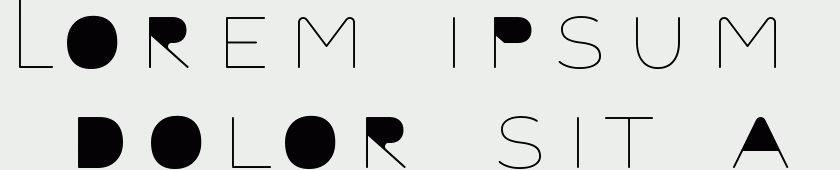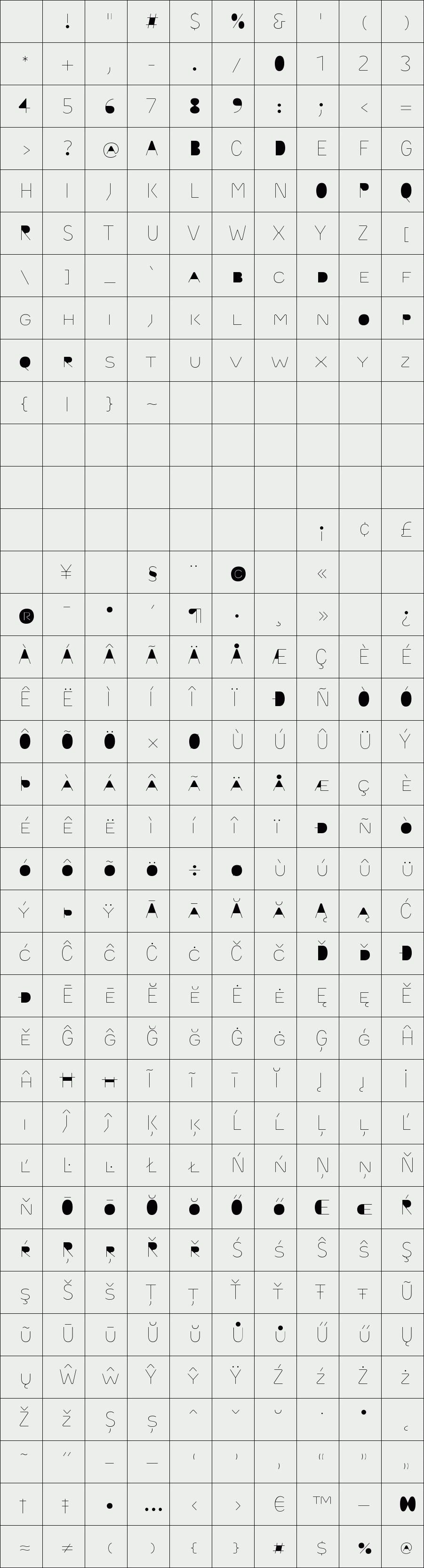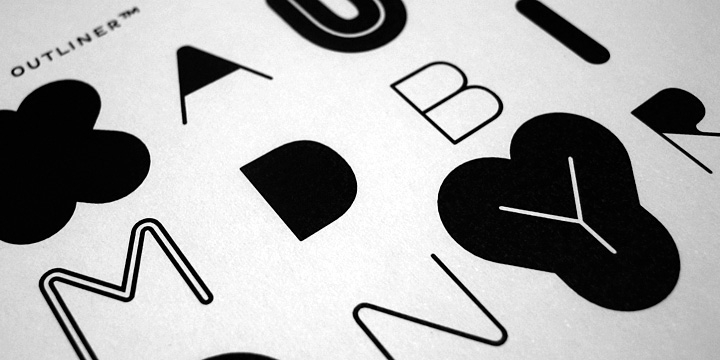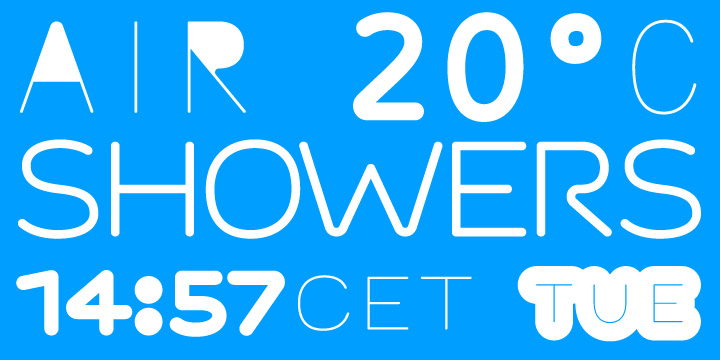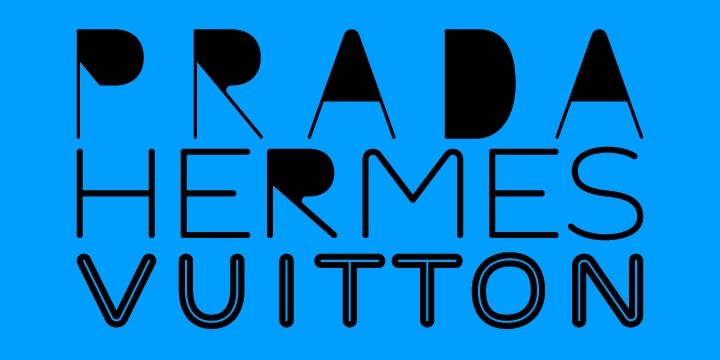
Outliner
Outliner is a typeface specially designed for use with outline strokes. It is based on Urtd’s free monospace typeface Monoxil.
The lowercase characters of Outliner are actually small capitals, because the shapes of uppercase letters, in contrast to lowercase, are much easier to distinguish and read even when deformed by an outline. The decision whether to choose upper or lower case is then only a question of desired character and atmosphere of text. Many special characters have a small capital version and some characters also have an alternative version, which makes the typographic possibilities even wider.
The main design features of Outliner are: The counters and white spaces within B, E, F, P, R and S are the same size, so they close concurrently when the thickness of the outline is being increased. All sharp corners are actually rounded, so there don't appear any triangles sticking out ot the shape when a thick outline is applied. (Because it is not possible to choose the type of the connections of the outline for text in InDesign.) The ends of strokes are rounded, which, in cooperation with the outline, makes them look symmetrical even if the text is slanted.
Outliner has two styles—Regular and Fill. No outline is needed for closing up the counters of Outliner Fill, they are filled by default.
Designer: Ondrej Jób